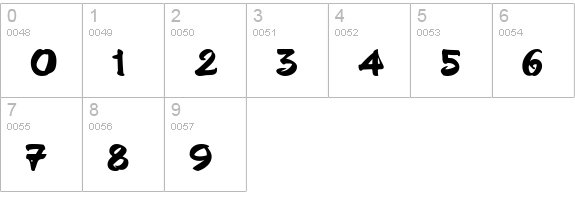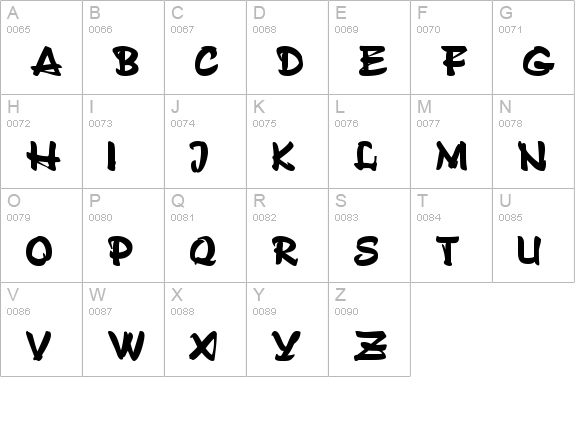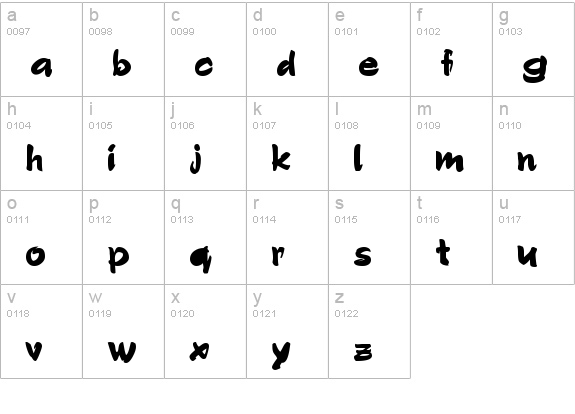
GrunionScript Bold Font Details
GrunionScript Bold is a strong, high-contrast variant in the GrunionScript typeface family \xE2\x80\x94 well suited to headlines, attention-grabbing titles, and strong calls-to-action.
Introducing GrunionScript Bold font, a striking and bold typeface perfect for making a statement in any design project. This font exudes elegance and sophistication, with its sleek lines and modern appeal. Whether you're designing a logo, poster, or website, GrunionScript Bold will add a touch of class and style to your work. The best part? GrunionScript Bold is completely free to download at FontsMarket.com. Yes, you read that right - this stunning font is available for free, allowing you to elevate your designs without breaking the bank. Don't miss out on this incredible opportunity to enhance your creative projects with GrunionScript Bold. Download it today and see the difference it can make in your work!